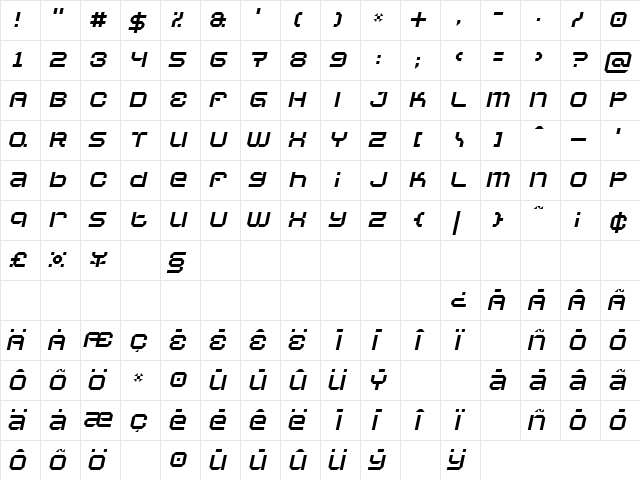
Vaporbyte Slim Italic
Design Context for Vaporbyte Slim Typeface
Vaporbyte Slim offers clean, dependable letterforms without strong stylistic allegiance, making it a practical choice for designers who need flexibility. The dynamic lean of this cut emphasises speed and emphasis in any layout.